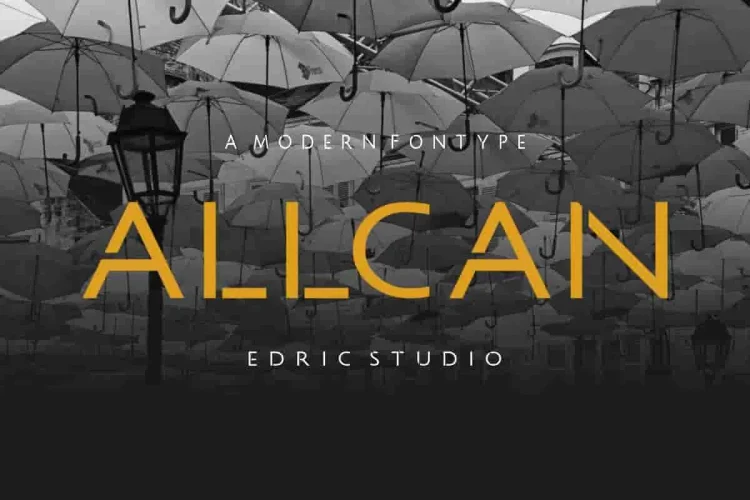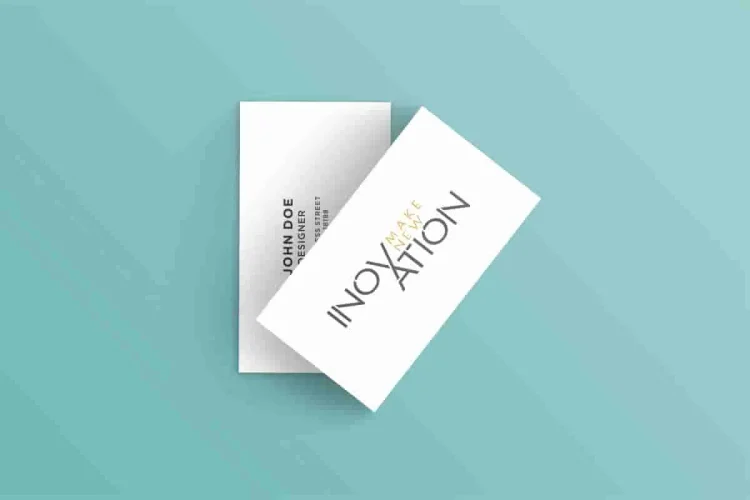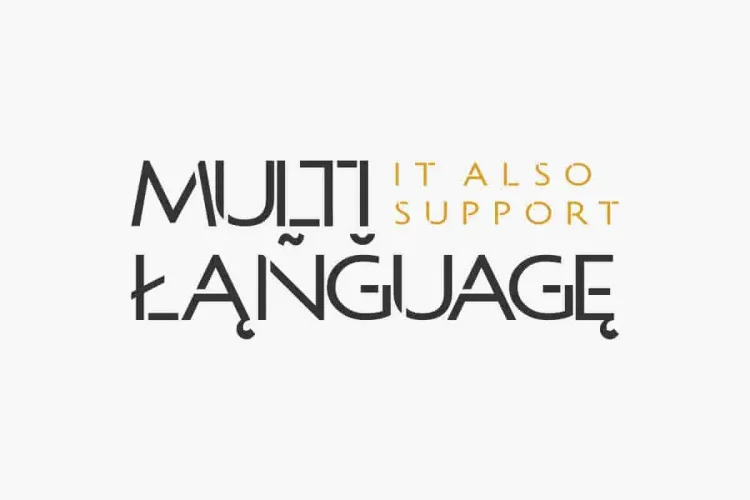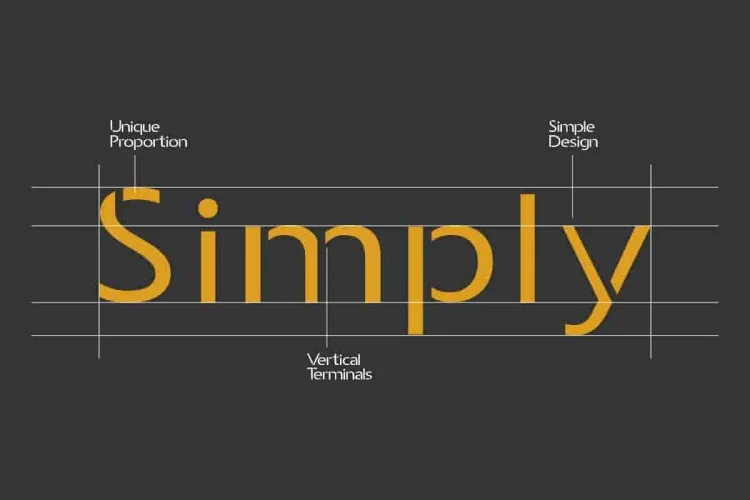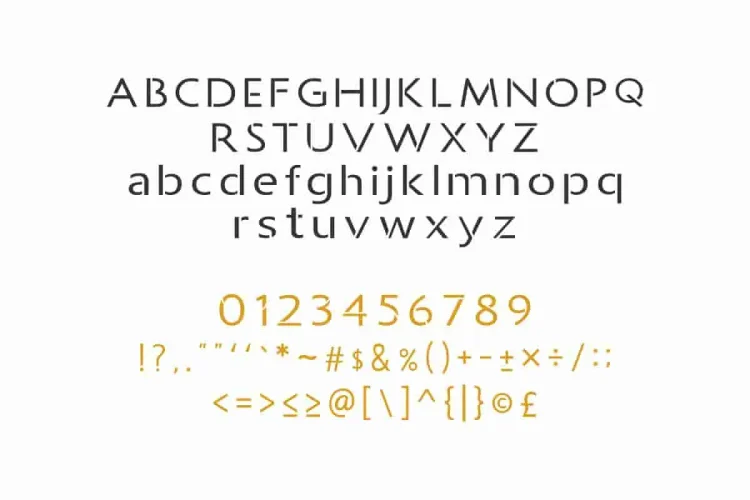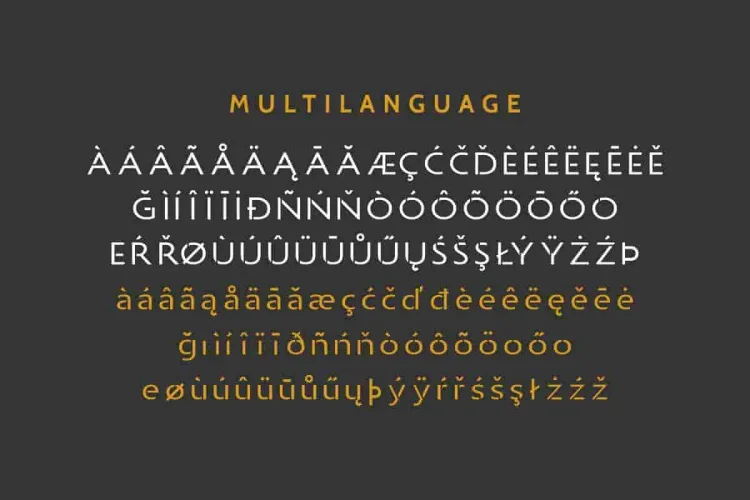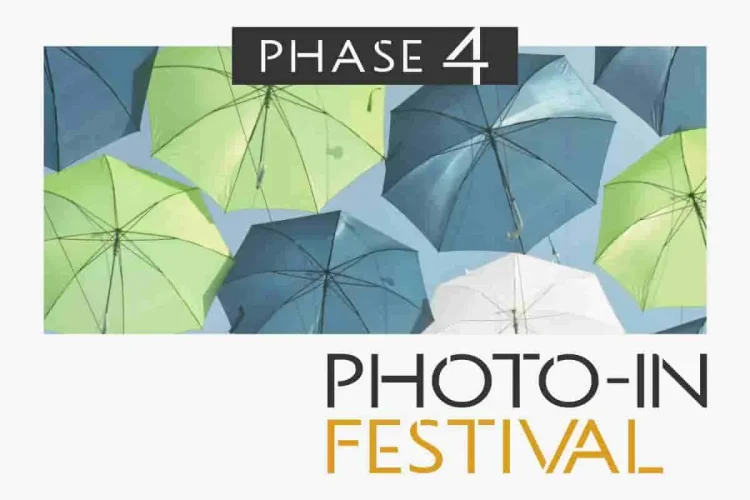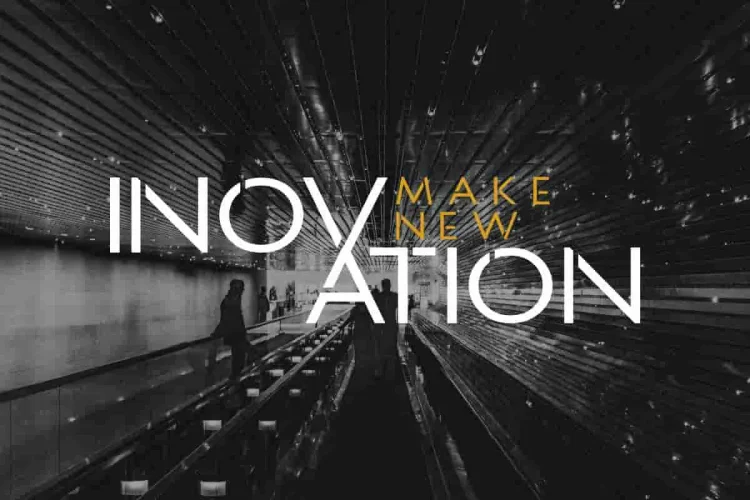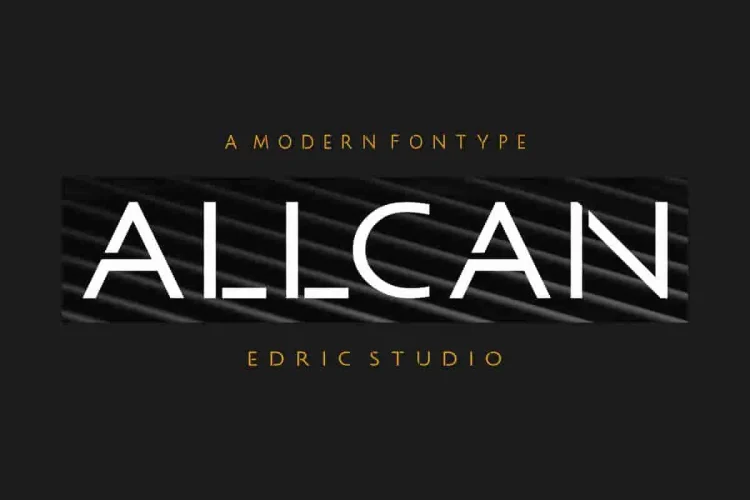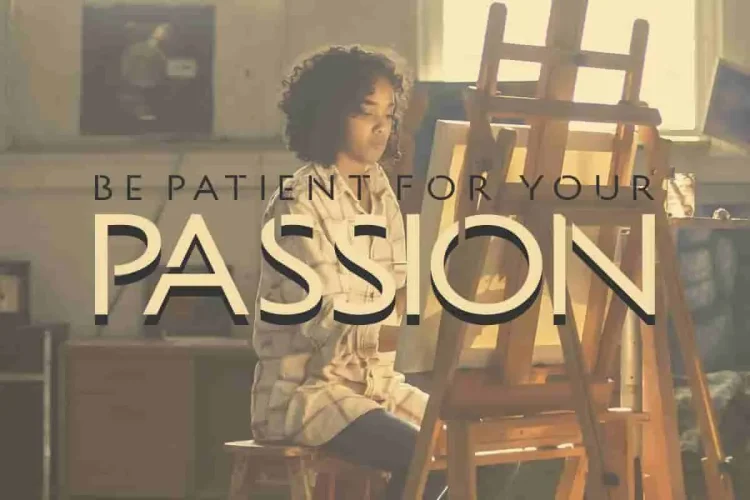
Allcan Modern Display Font
Introducing our newest font : Allcan ! This is a new modern font. a Modern Display Font that blends futuristic style with minimal elegance. Will be great for branding, logo, stationery, business card, etc
To begin with, what makes Allcan unique is its distinct character proportions. The font features geometric shapes, vertical terminals, and a minimalist structure that’s easy on the eyes yet powerful in presence. The sharp cuts and clean lines make every letter look structured and intentional
Additionally, Allcan offers exceptional readability, even in large display sizes. This makes it ideal not just for branding and logo design, but also for packaging, signage, posters, website headers, and magazine covers. Its sleek curves and simple yet impactful design give your layout a polished and professional look—without overcomplicating it.
Allcan is also multilingual—supporting an extensive range of Latin-based languages. So whether your audience speaks English, Polish, Spanish, or beyond, this font ensures your message is delivered clearly and beautifully across the globe.
In summary, Allcan is bold yet simple, modern yet timeless. It’s designed for creatives who want clarity, strength, and elegance in one powerful typeface.
Try it for branding, editorial design, UI/UX interfaces, or anything where your typography needs to shine. Whether you’re a designer, marketer, or business owner. Allcan will help elevate your visual identity with confidence.